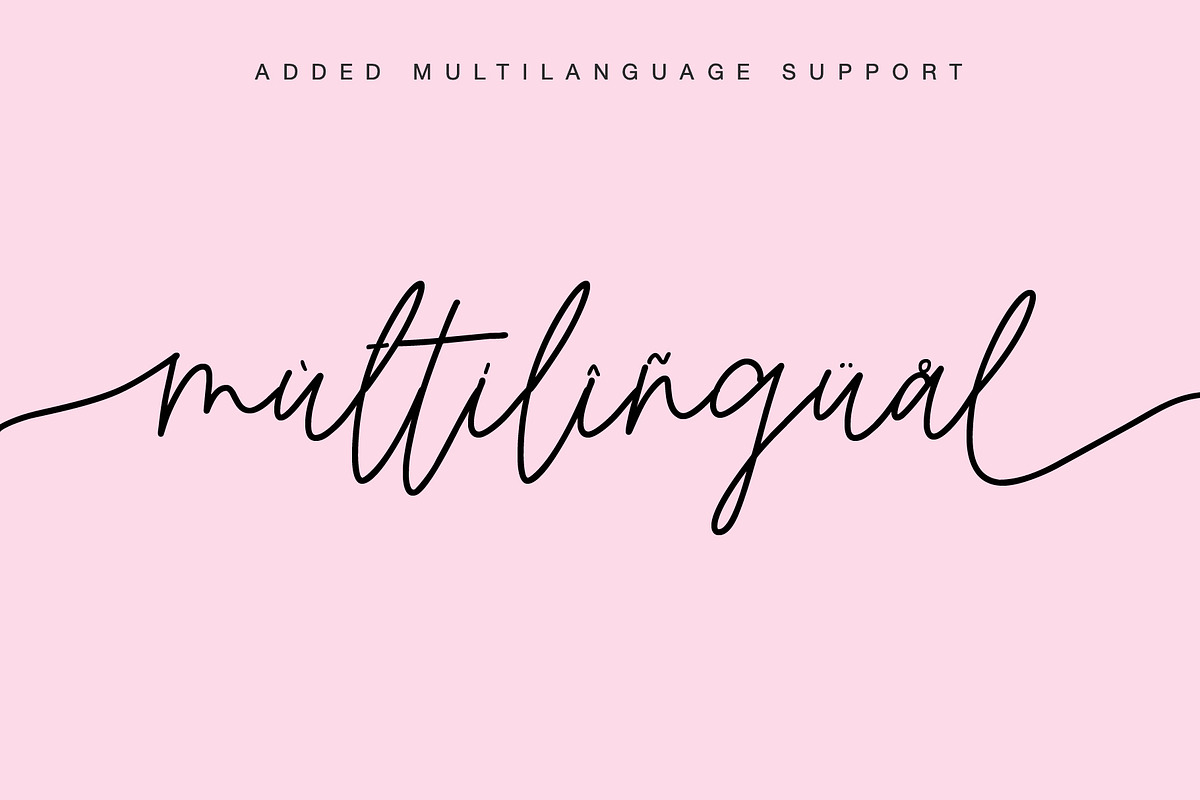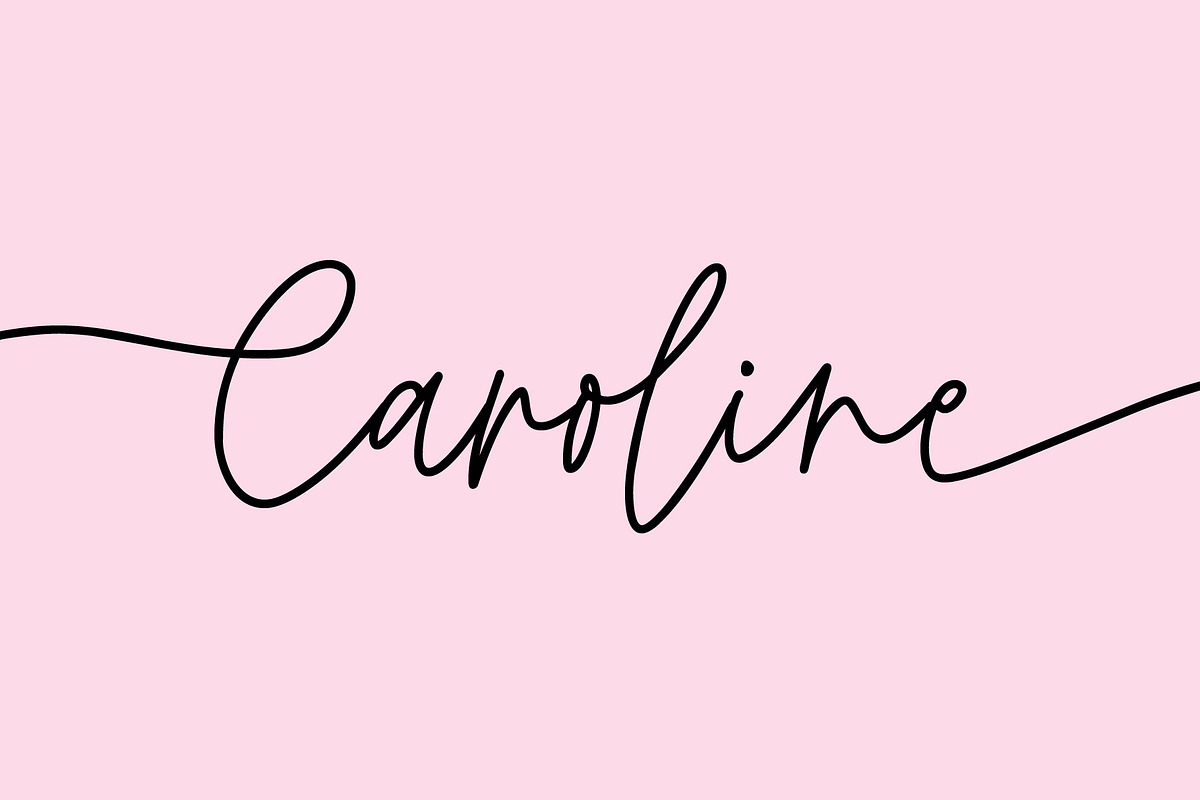
Moontime Script
Big update
- Add Monogram with hearts
- Added support for many European languages (try it lower)
How it works? Write:
-angela
Jacob-
-Angela-
-Jane&Cole-
-Angela&
-a&m-
This modern calligraphy script has been attentively written, with gentle curves to produce a font thats completely distinctive and original. It contains a full set of lower & uppercase letters, a large range of punctuation, numerals, and multilingual support. Perfect for adding a elegant and unique touch to your lettering projects and branding
Also with their help, you can create a Wedding lettering or beautiful frame for your home. Or just use for your small, book covers, stationery, marketing, magazines and more.
- Moontime Script
- Uppercase swashes
- Lowercases Swashes
- Hearts Swashes
- Monogram Swashes